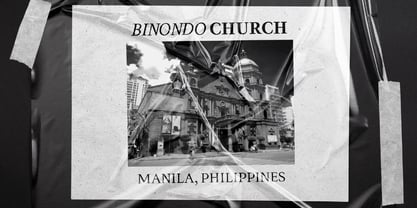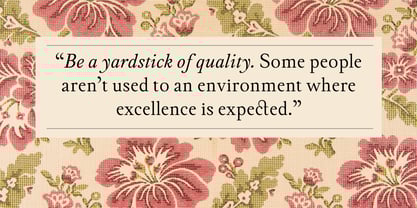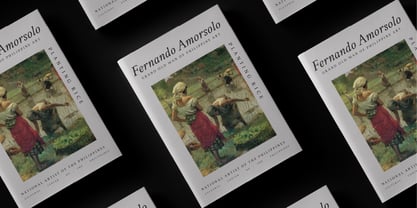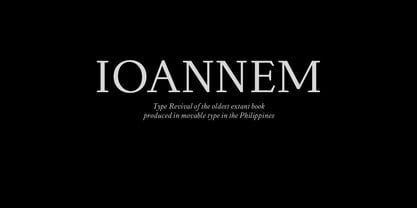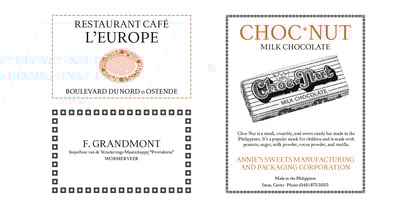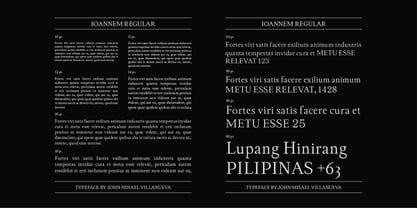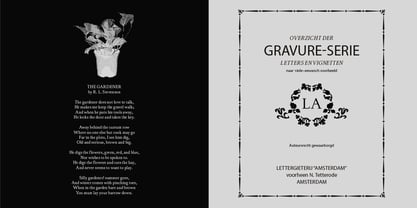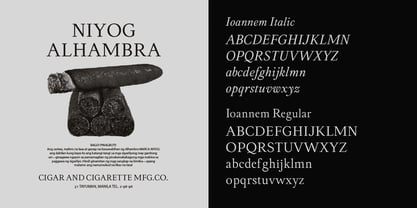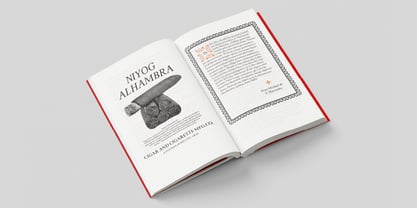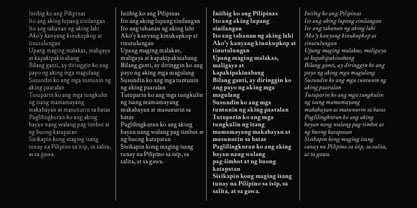
Ioannem
by FontDuo
The Ioannem Font Family was designed by John Misael Villanueva and published by FontDuo. Ioannem contains 9 styles and family package options. More about this family
Ioannem is a typeface based on the 1604 book Ordinationes Generales Prouintiæ Sanctissimi Rosarij Philippinarum, printed by Juan de Vera—the oldest extant book produced with movable type in the Philippines. The typeface is wide and rounded, featuring wedge serifs that evoke an authentic historical feel. I studied a scanned copy of Ordinationes Generales, focusing on the letter proportions and details, and recreated the typeface to capture the essence of the original while making it suitable for modern use. Ioannem is available in multiple weights and supports multiple languages. Designed with a focus on conservation and functionality, Ioannem connects colonial-era printing styles with modern typographic requirements. Its structure and subtle historical character make it ideal for editorial design, book covers, historical publications, and branding projects that seek to evoke a sense of heritage and authenticity. Suitable for both display and body text, Ioannem provides a unique voice grounded in the Philippines' rich typographic heritage.
Designers: John Misael Villanueva
Foundry: FontDuo